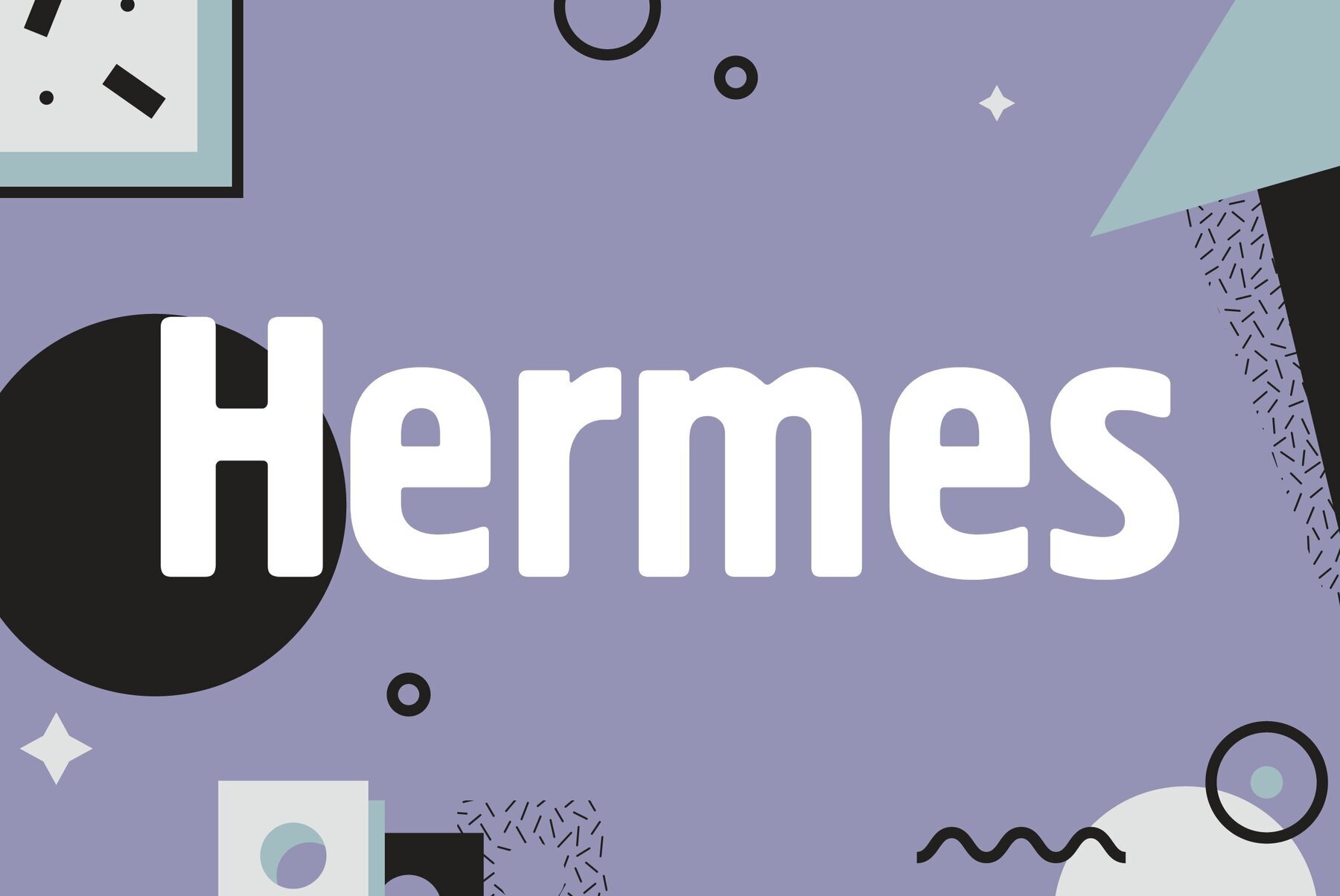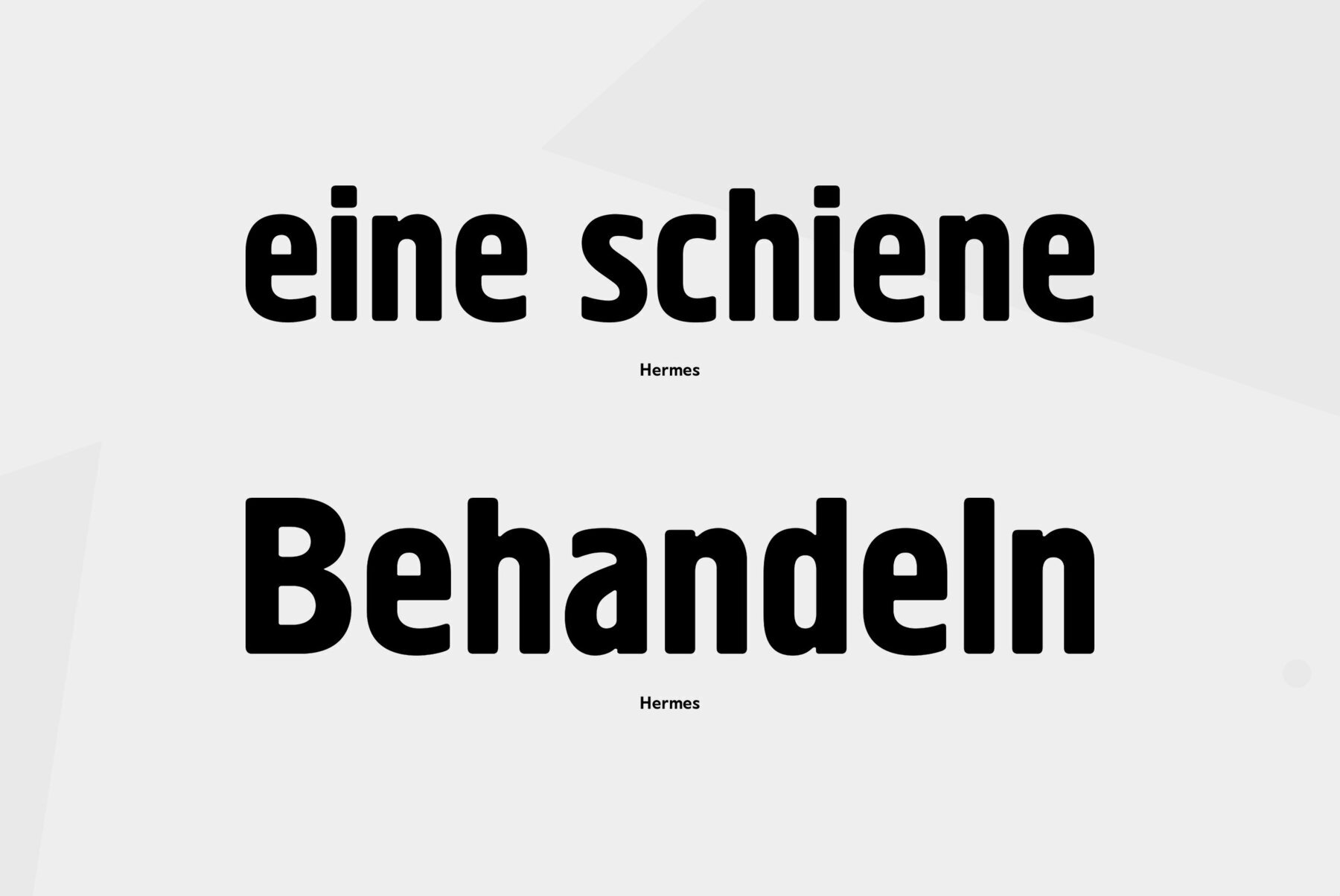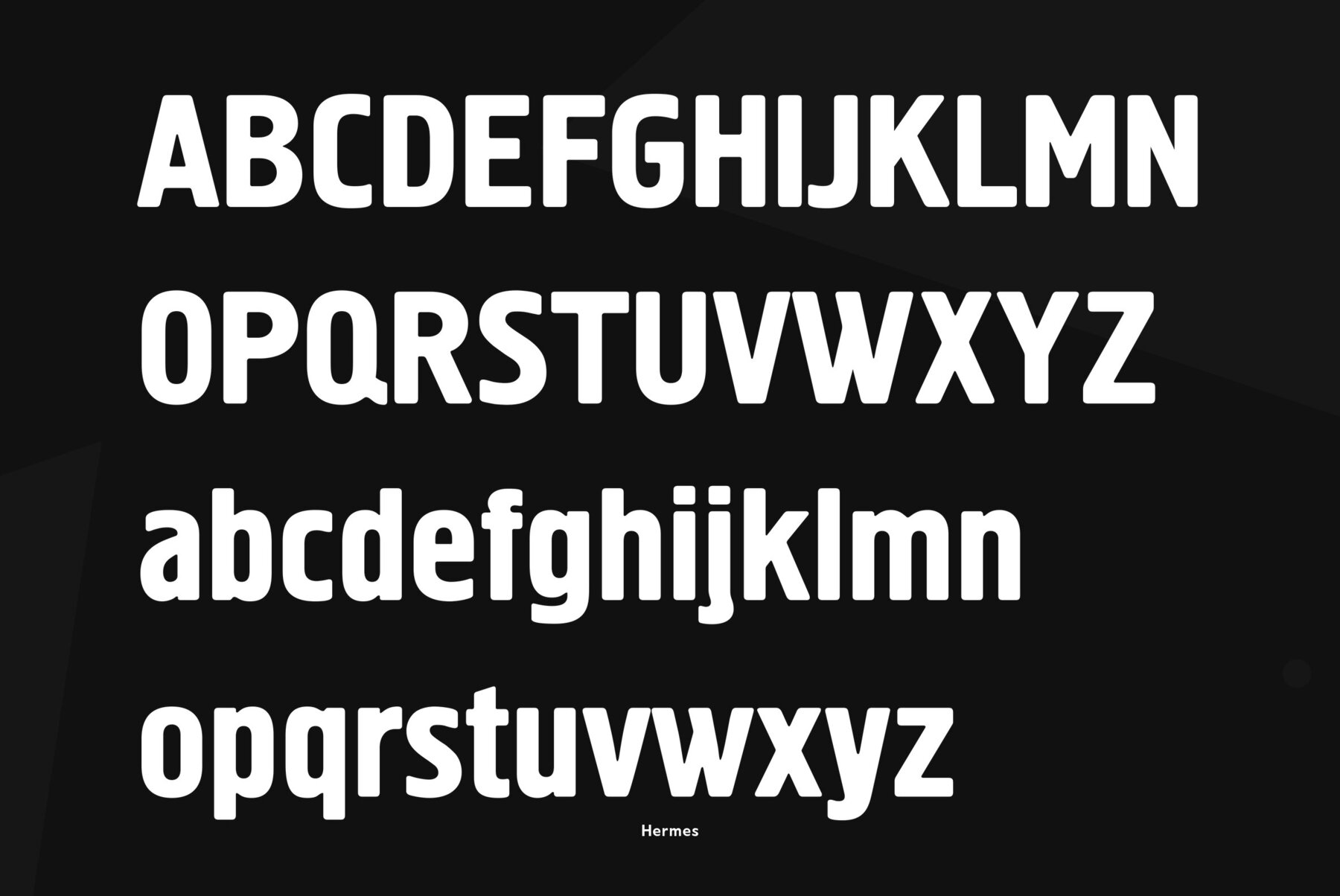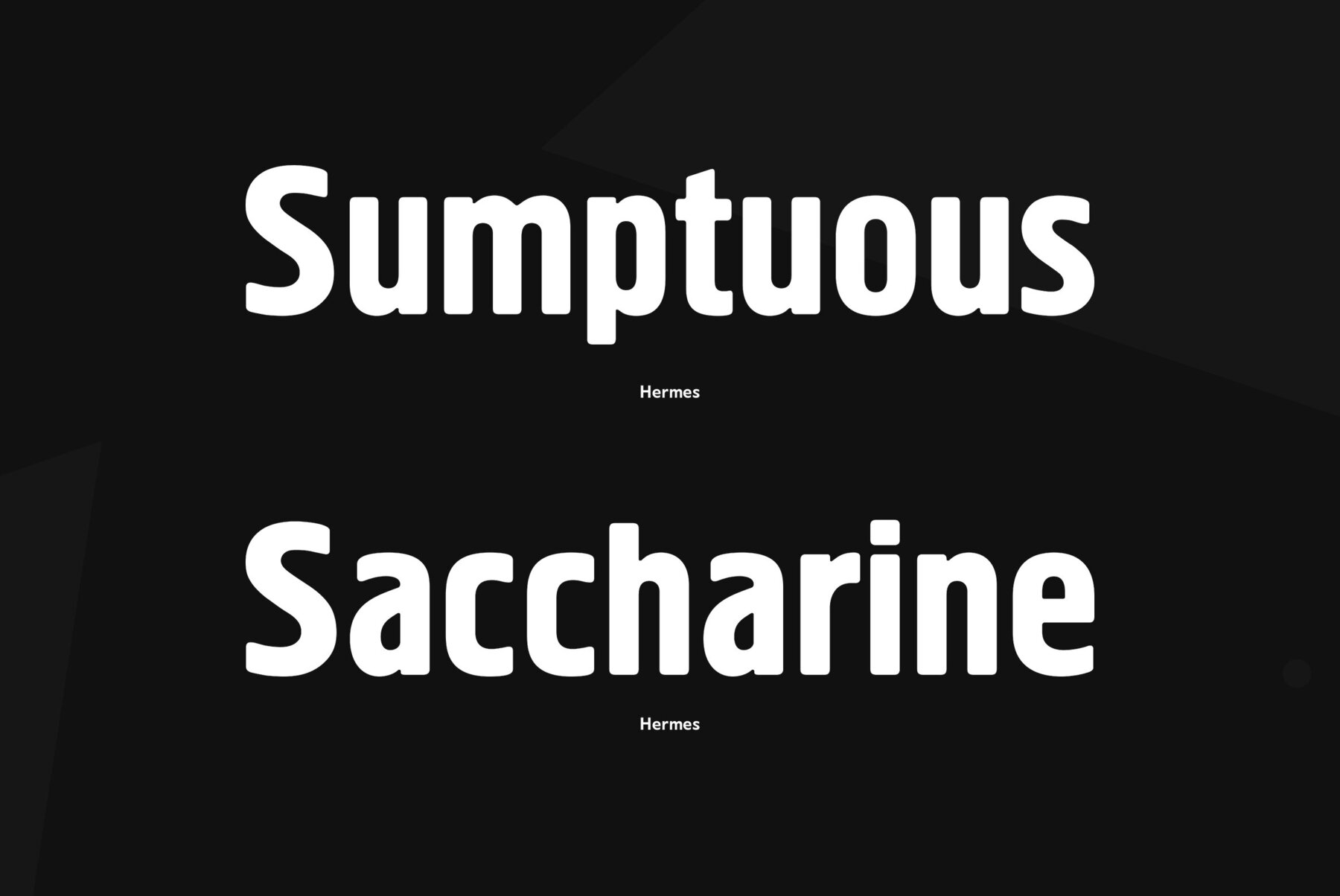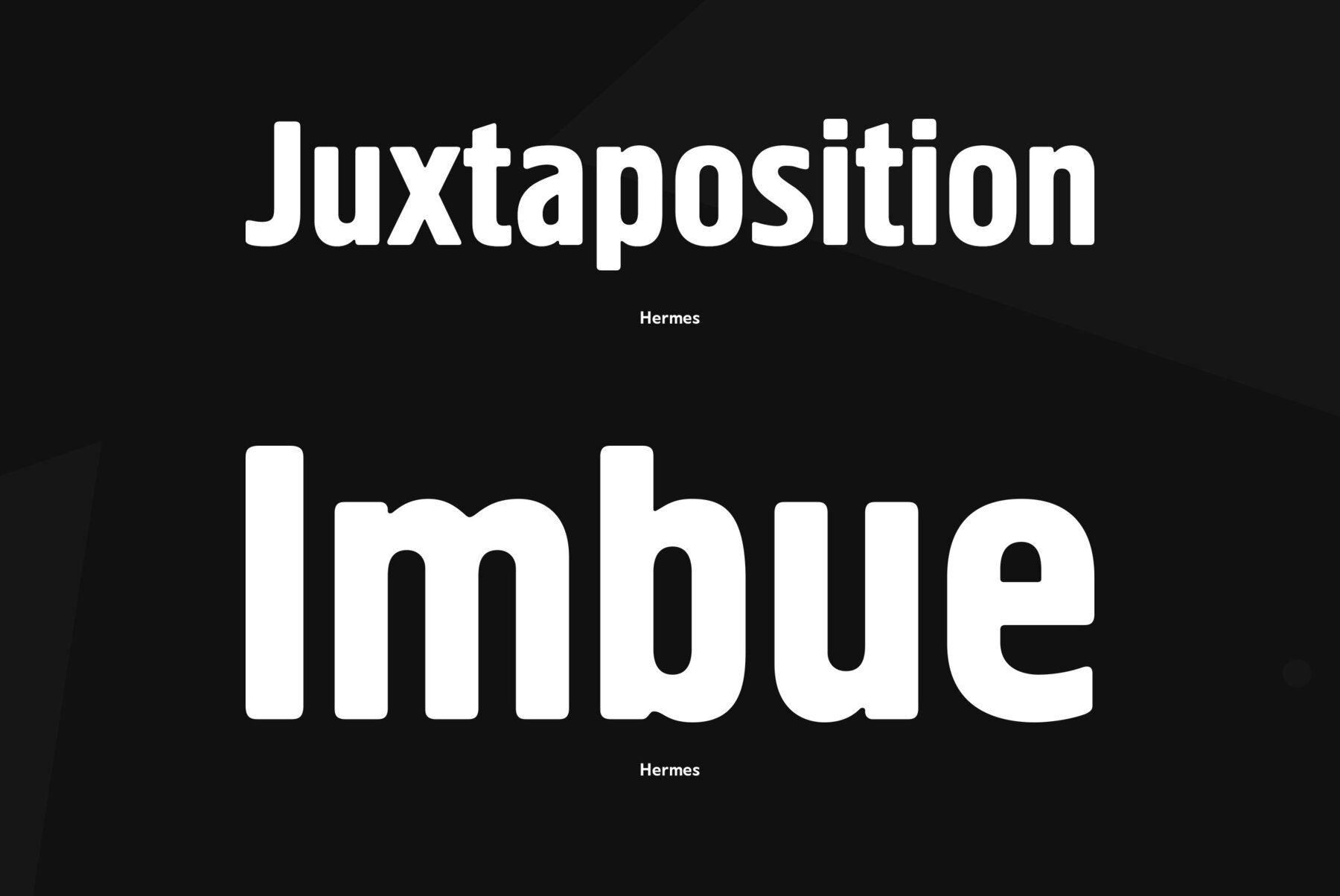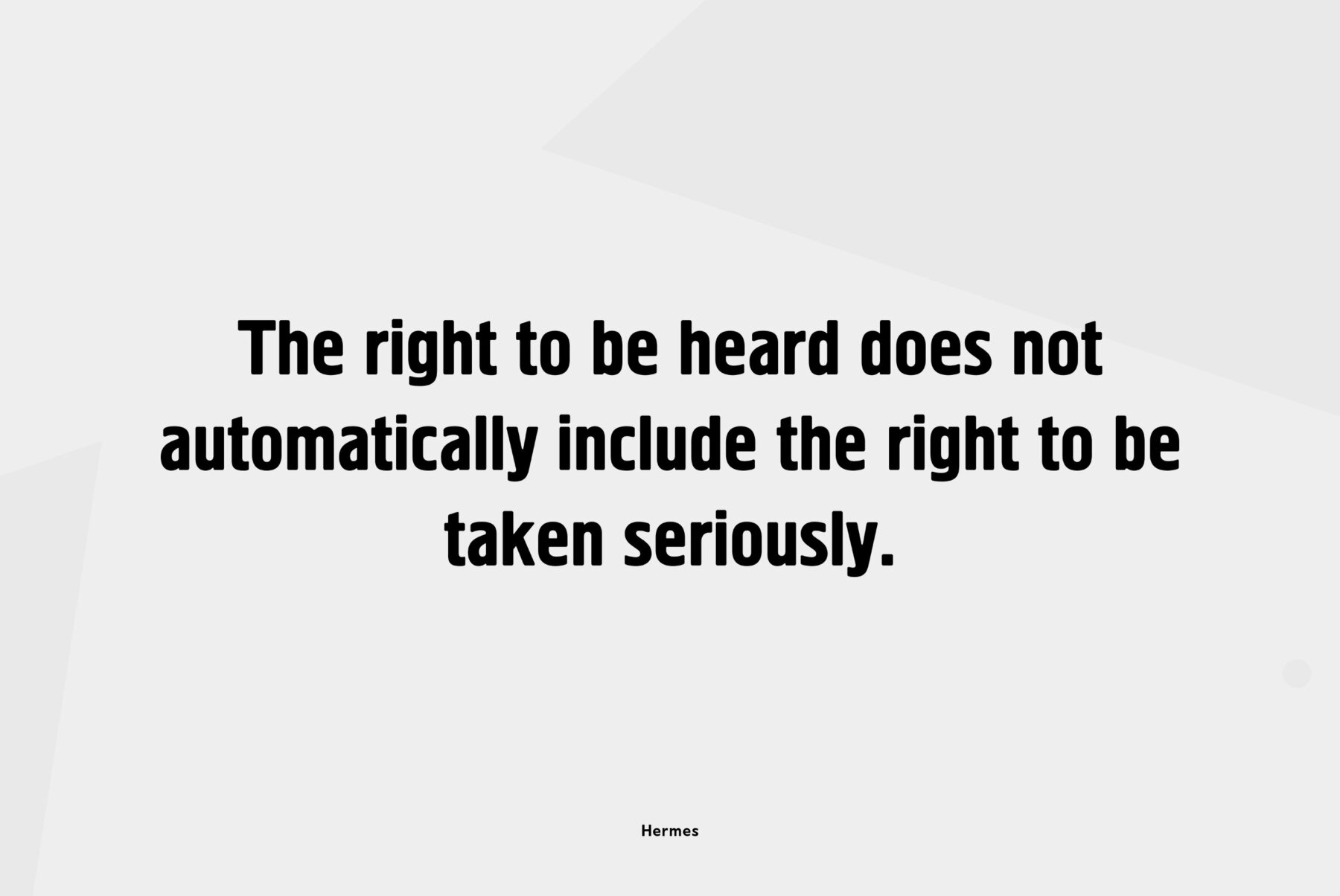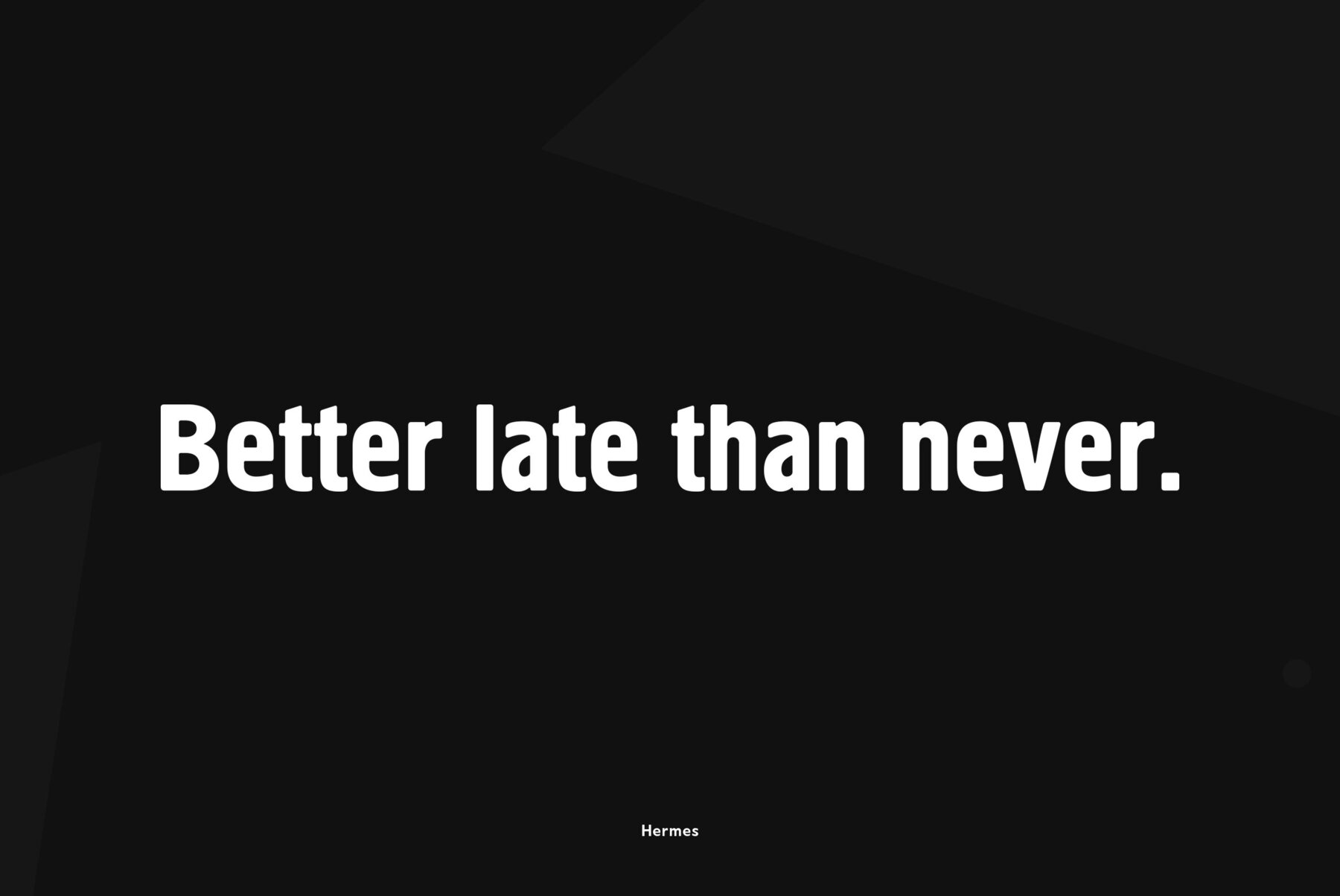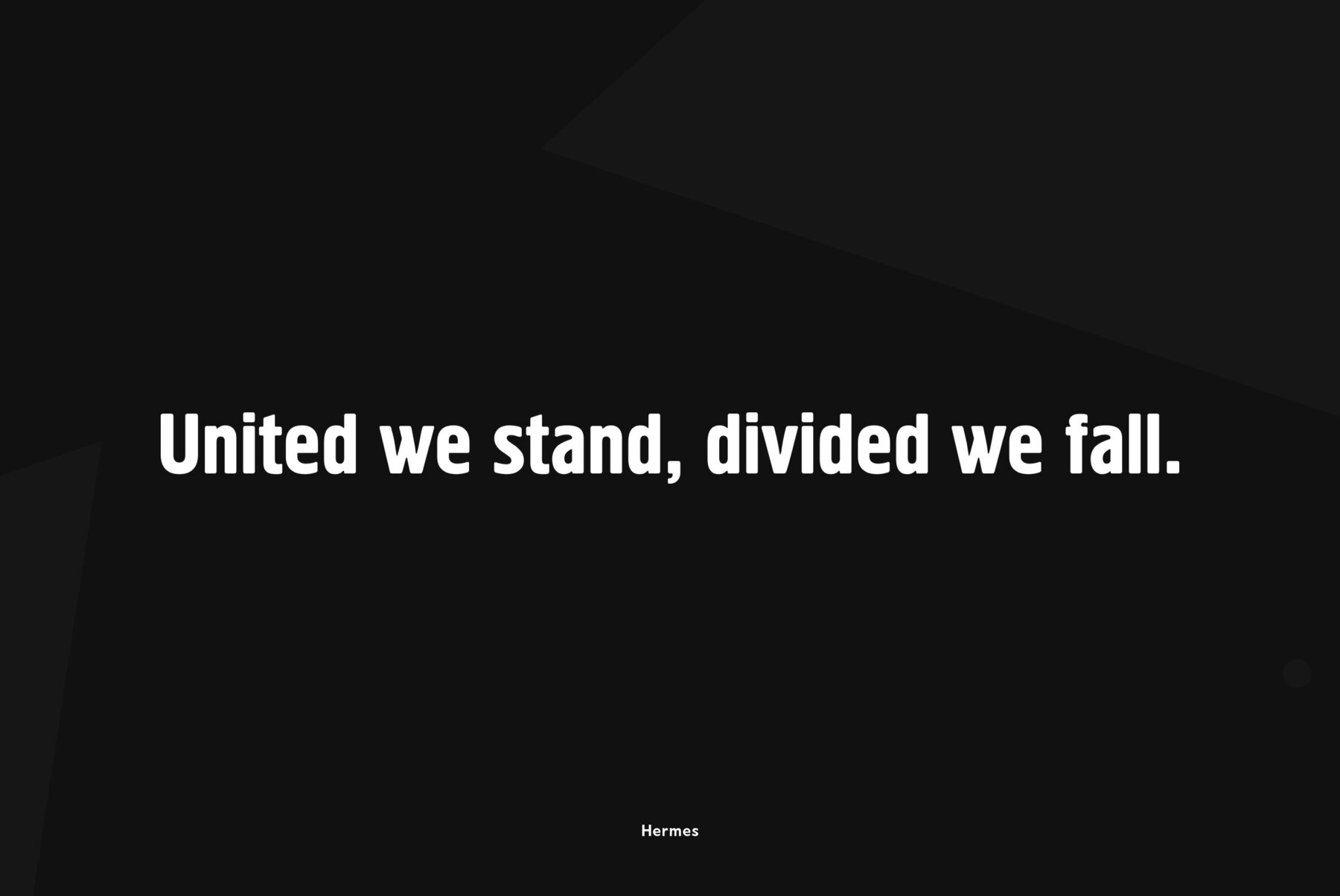
The typeface was designed at ParaType (ParaGraph) in 1993 by Tagir Safayev. Based on Placard typeface (Hermes Grotesk) of the Lange type foundry (St.-Petersburg), an adaptation of Hermes Grotesk, of the Woellmer type foundry (Berlin, middle of the 19th century). This sans serif with its old-fashion stability looks well in advertising and display typography. Additional decorative style, designed by Alexander Tarbeev, was released in 1996.